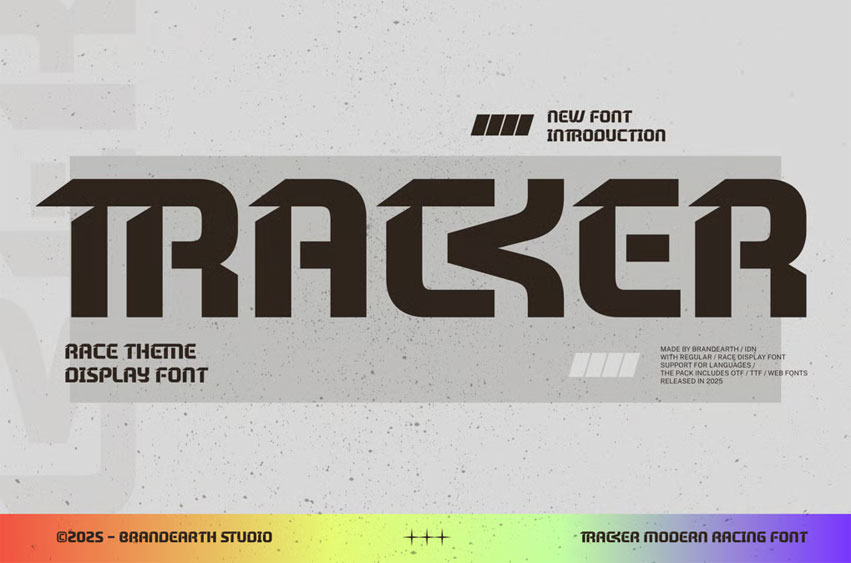
Tracker Font
Tracker Font is a bold racing-inspired display typeface designed with sharp edges and dynamic cuts that capture speed, power, and motion. With its futuristic geometric design and industrial feel, Tracker is perfect for motorsport branding, esports logos, automotive advertising, and high-energy poster titles.
The font includes uppercase, lowercase, numerals, punctuation, and symbols, ensuring versatility for both print and digital use. Its modern condensed style gives a strong presence while maintaining legibility, making it a go-to choice for racing events, technology visuals, and modern bold graphics.